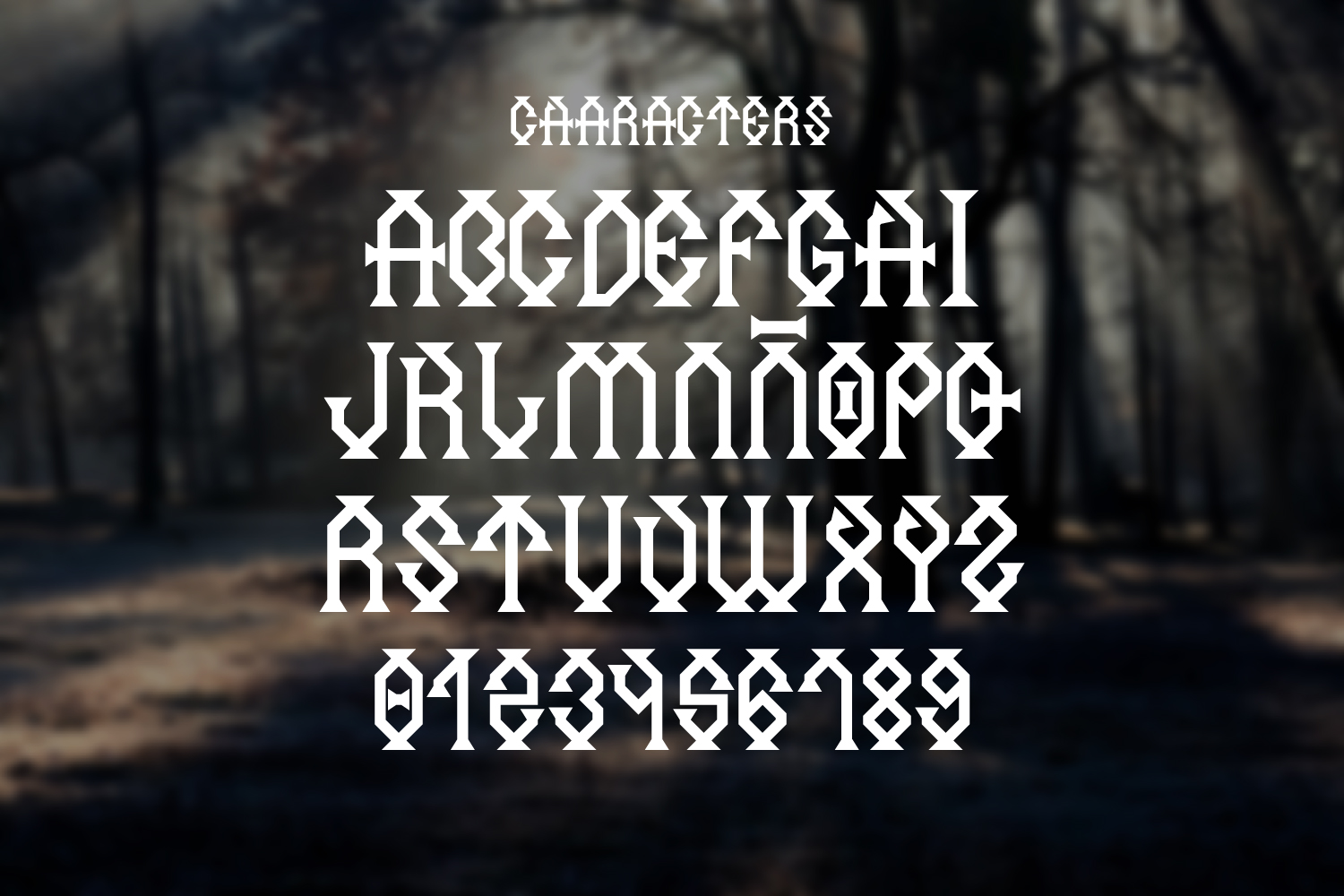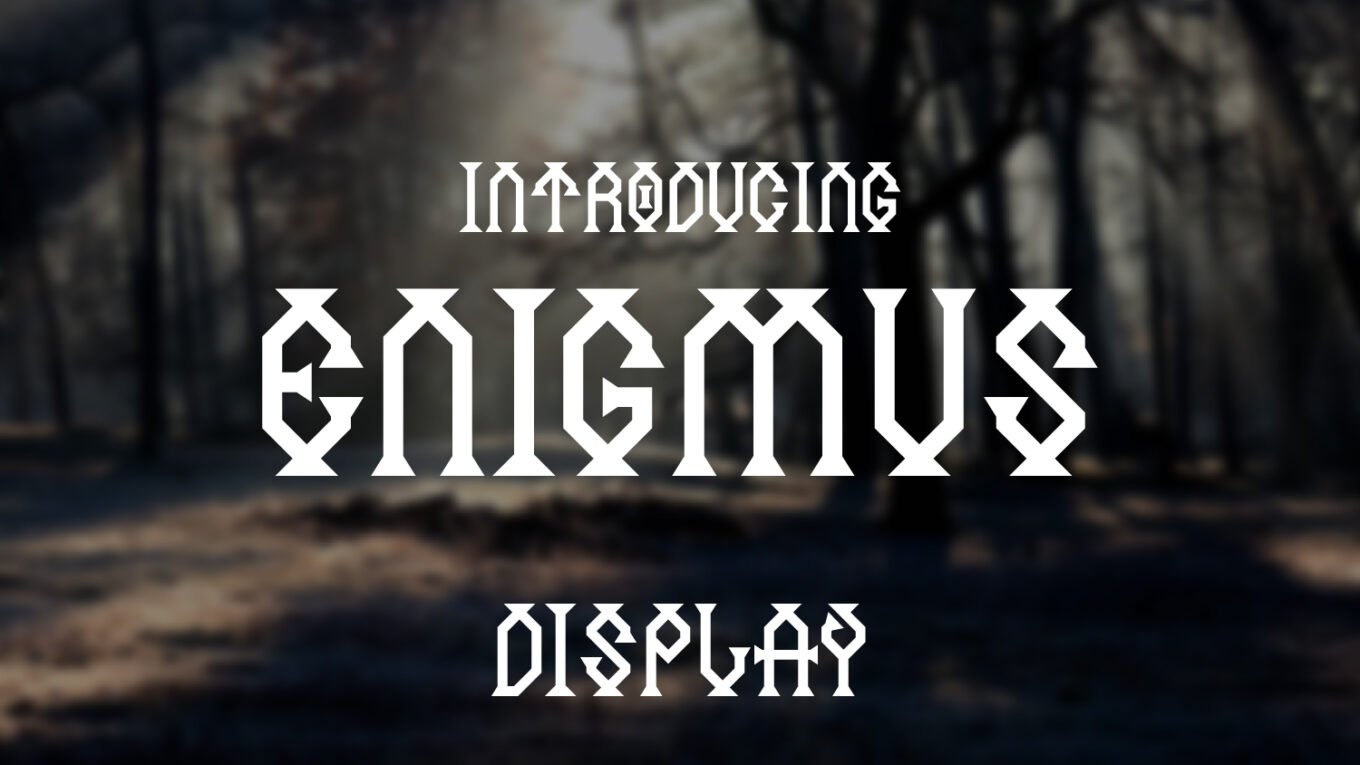
Unleash Your Creativity with Enigmus Font: A Unique and Decorative Display Font
Are you tired of using the same old fonts in your design projects? Do you want to add a touch of elegance and sophistication to your creations? Look no further than Enigmus Font, a stunning and unusual font that’s perfect for giving your projects a one-of-a-kind appeal. In this article, we’ll take a closer look at Enigmus Font, its features, and how you can use it to elevate your designs.
What is Enigmus Font?
Enigmus Font is a decorative display font that’s both gorgeous and unusual. Its unique design makes it perfect for adding a touch of seriousness and elegance to your projects. Whether you’re working on a logo, branding materials, or marketing collateral, Enigmus Font is sure to make your designs stand out.
Key Features of Enigmus Font
So, what makes Enigmus Font so special? Here are some of its key features:
- Unique Design: Enigmus Font has a distinctive design that’s unlike any other font out there. Its unusual shape and structure make it perfect for adding a touch of personality to your designs.
- Decorative and Serious: Despite its decorative nature, Enigmus Font also has a serious side. This makes it perfect for a wide range of designs, from formal documents to creative projects.
- Highly Versatile: Enigmus Font looks great across a wide range of designs, from modern and minimalist to vintage and distressed.
How to Use Enigmus Font in Your Designs
Enigmus Font is perfect for a wide range of design projects, including:
- Logo Design: Use Enigmus Font to create a unique and memorable logo that sets your brand apart.
- Branding Materials: Add a touch of elegance and sophistication to your branding materials, such as business cards, letterheads, and brochures.
- Marketing Collateral: Use Enigmus Font to create eye-catching marketing materials, such as posters, flyers, and social media graphics.
- Packaging Design: Add a touch of personality to your packaging design with Enigmus Font.
Tips for Getting the Most Out of Enigmus Font
Here are some tips for getting the most out of Enigmus Font:
- Experiment with Different Sizes: Enigmus Font looks great in a variety of sizes, from small and delicate to large and bold.
- Play with Color: Enigmus Font looks great in a range of colors, from bold and bright to subtle and muted.
- Combine with Other Fonts: Enigmus Font pairs well with a range of other fonts, so don’t be afraid to experiment with different combinations.
Enigmus Font is a unique and decorative display font that’s perfect for giving your projects a one-of-a-kind appeal. Its unusual design and highly versatile nature make it perfect for a wide range of designs, from formal documents to creative projects. Whether you’re a designer, crafter, or DIY enthusiast, Enigmus Font is sure to become a favorite in your font collection.